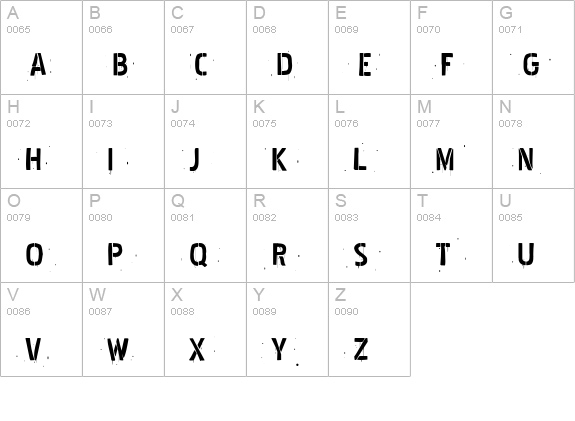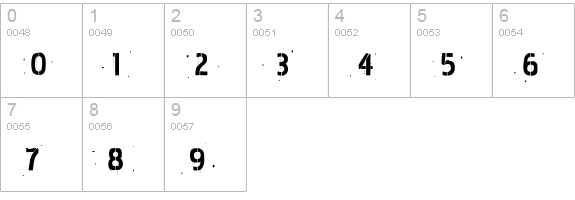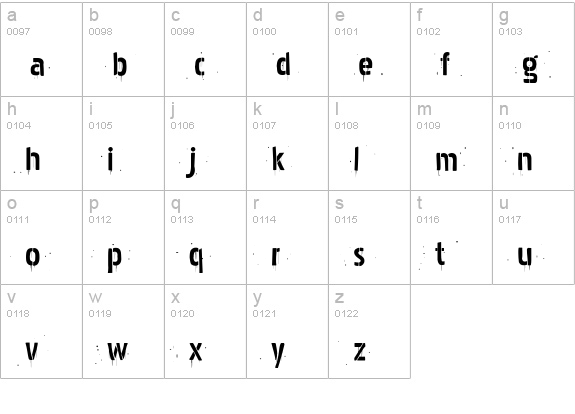
Pakenham Spraypaint Font Details
Pakenham Spraypaint font is a bold and dynamic typeface that exudes a sense of urban energy and creativity. With its edgy spray-painted look, this font is perfect for projects that require a modern and unconventional touch. Each character is uniquely designed with drips and splatters, adding a raw and expressive quality to your designs. The best part? Pakenham Spraypaint font is completely free to download at FontsMarket.com. Whether you're working on street art, posters, or any other project that calls for a touch of urban flair, this font is sure to make a statement. Don't miss out on the opportunity to add this versatile and eye-catching font to your collection today!